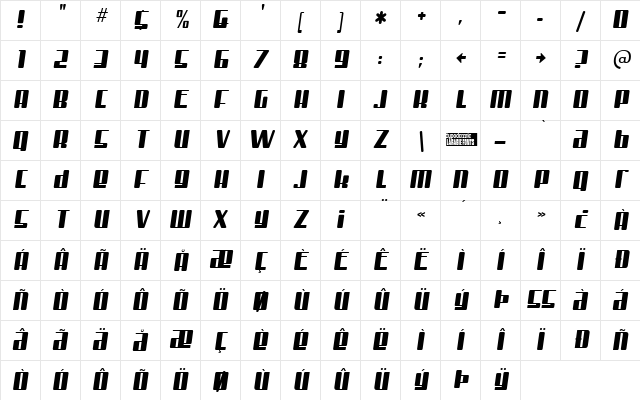
Mister Firley Regular Free Font
Mister Firley Regular
Design Context for Mister Firley
Mister Firley is a composed and adaptable typeface that performs quietly and consistently across a wide range of design contexts.